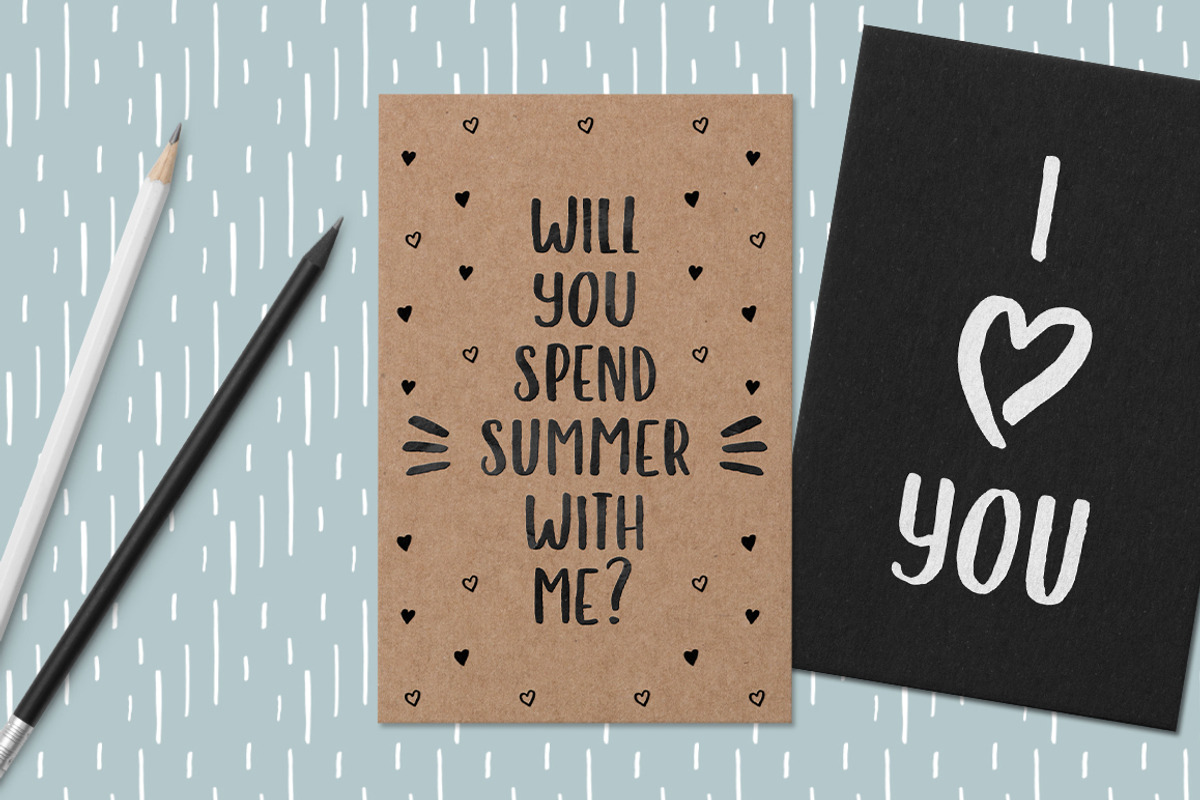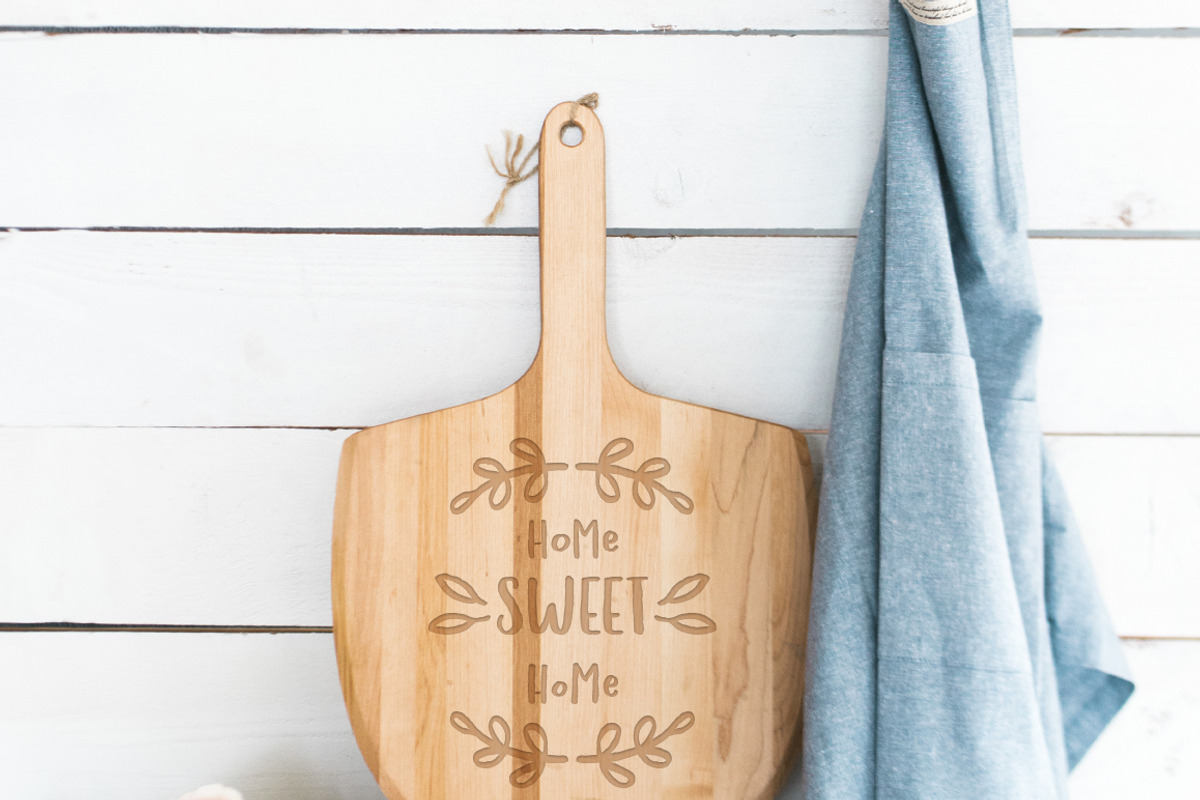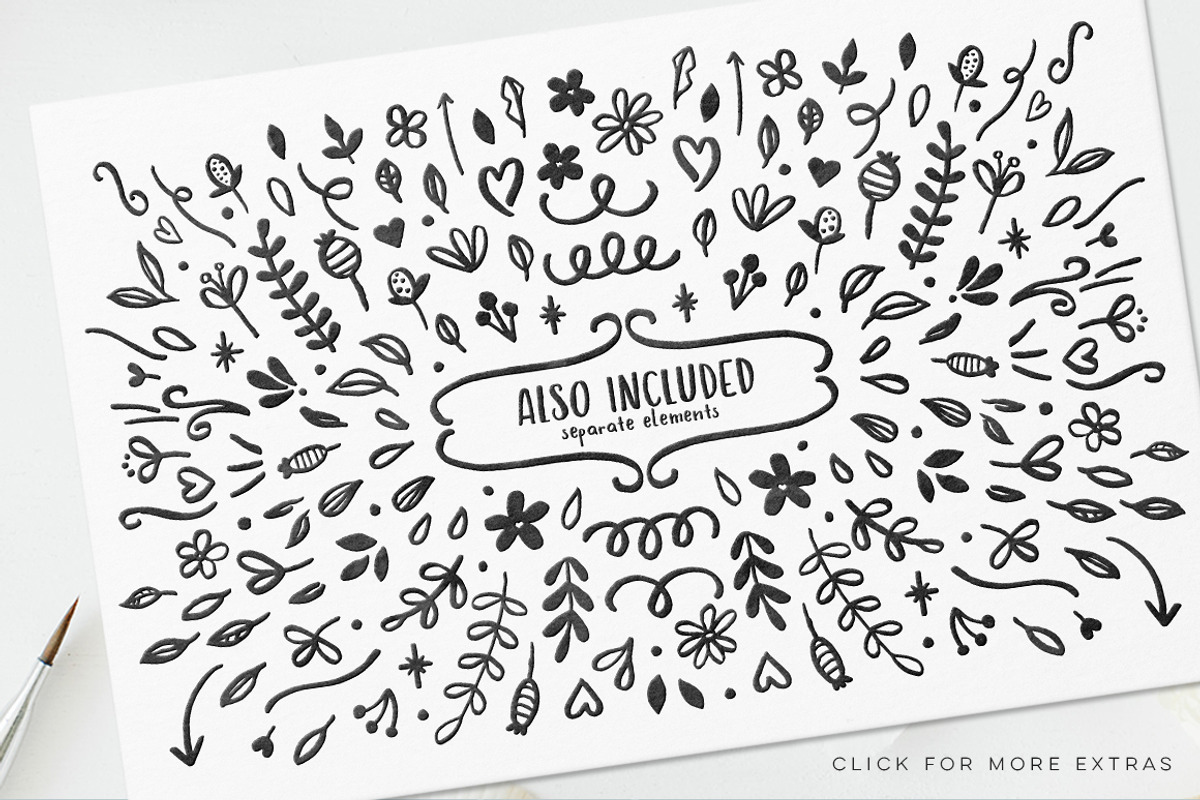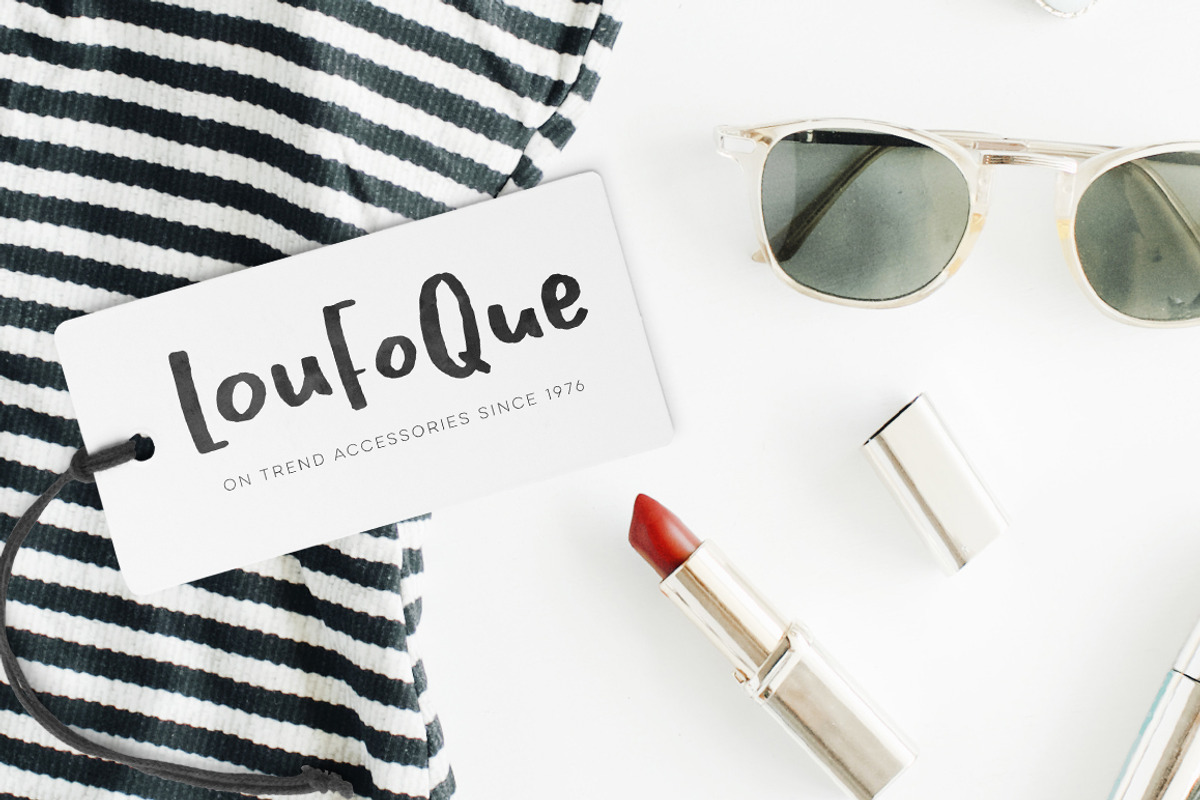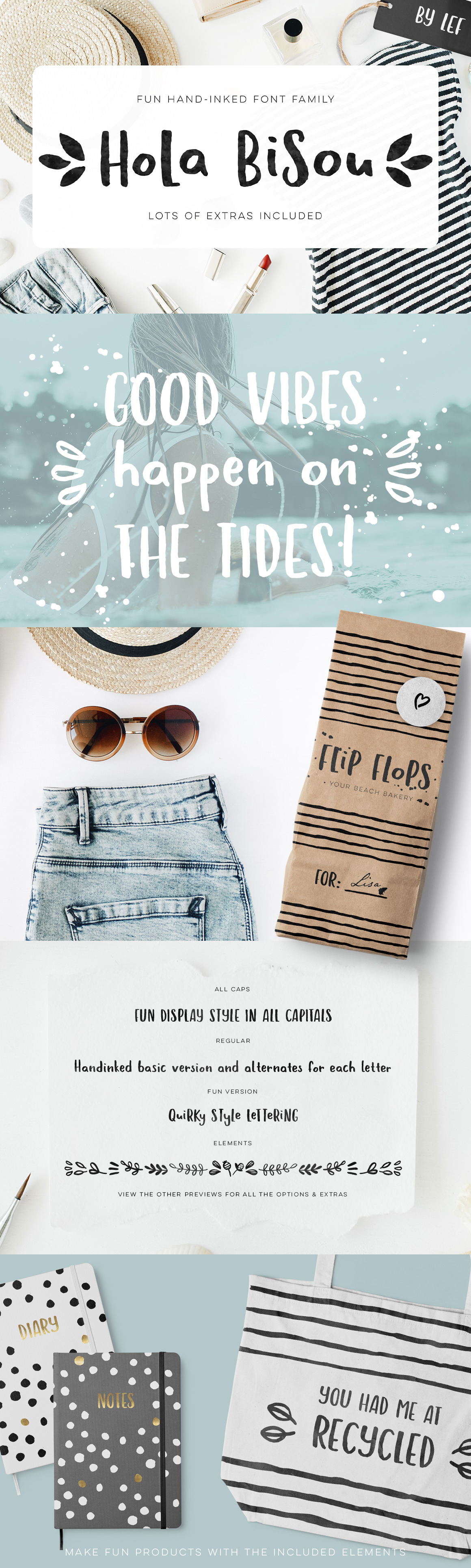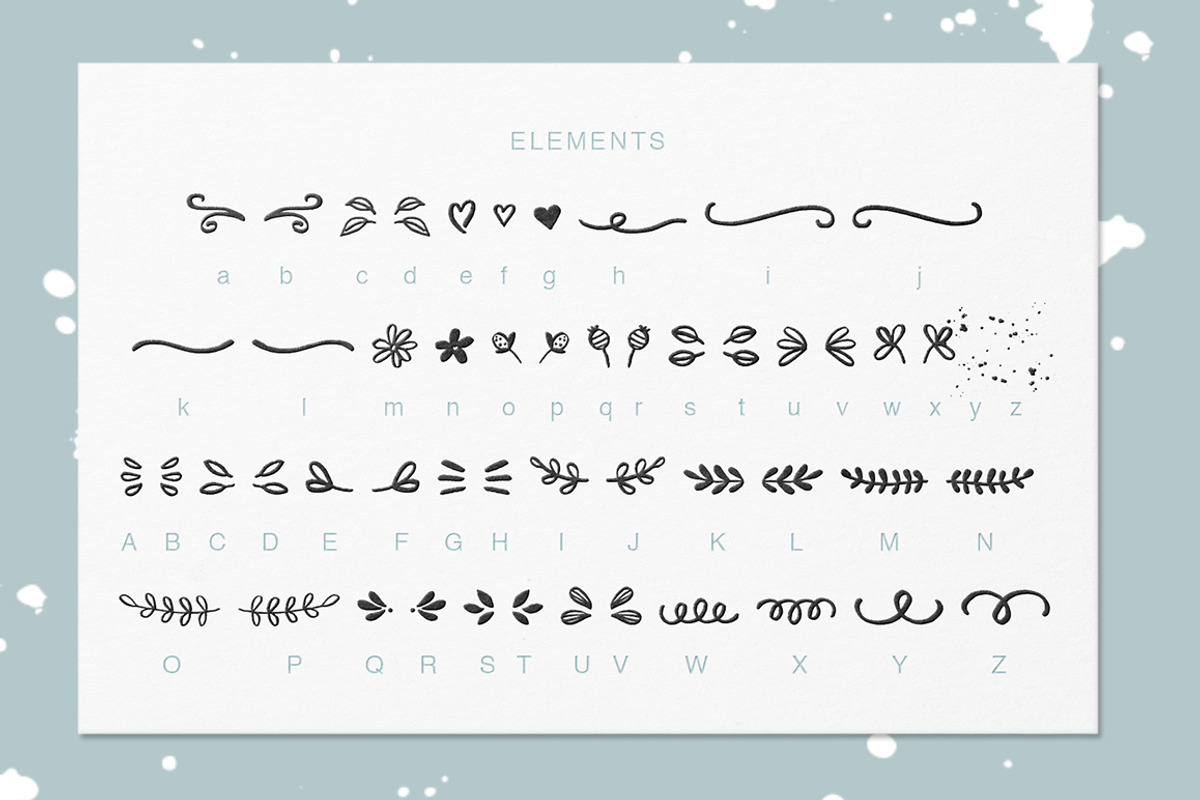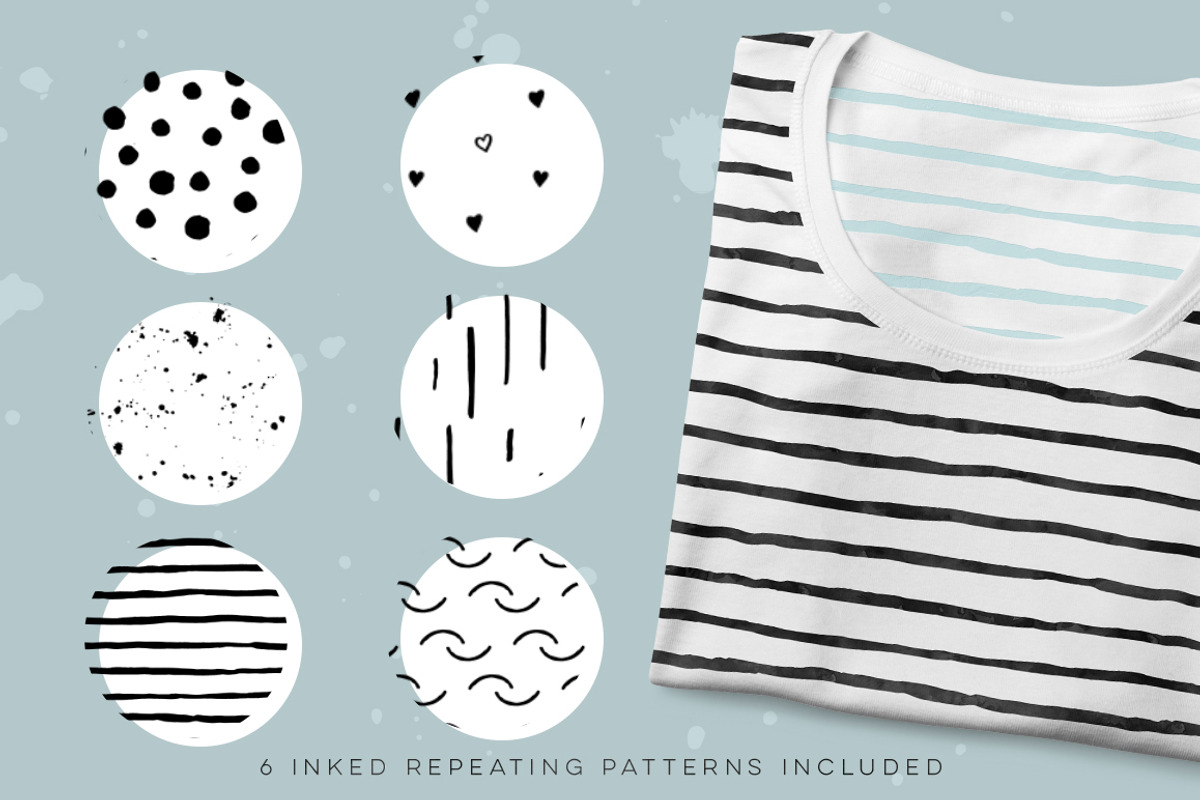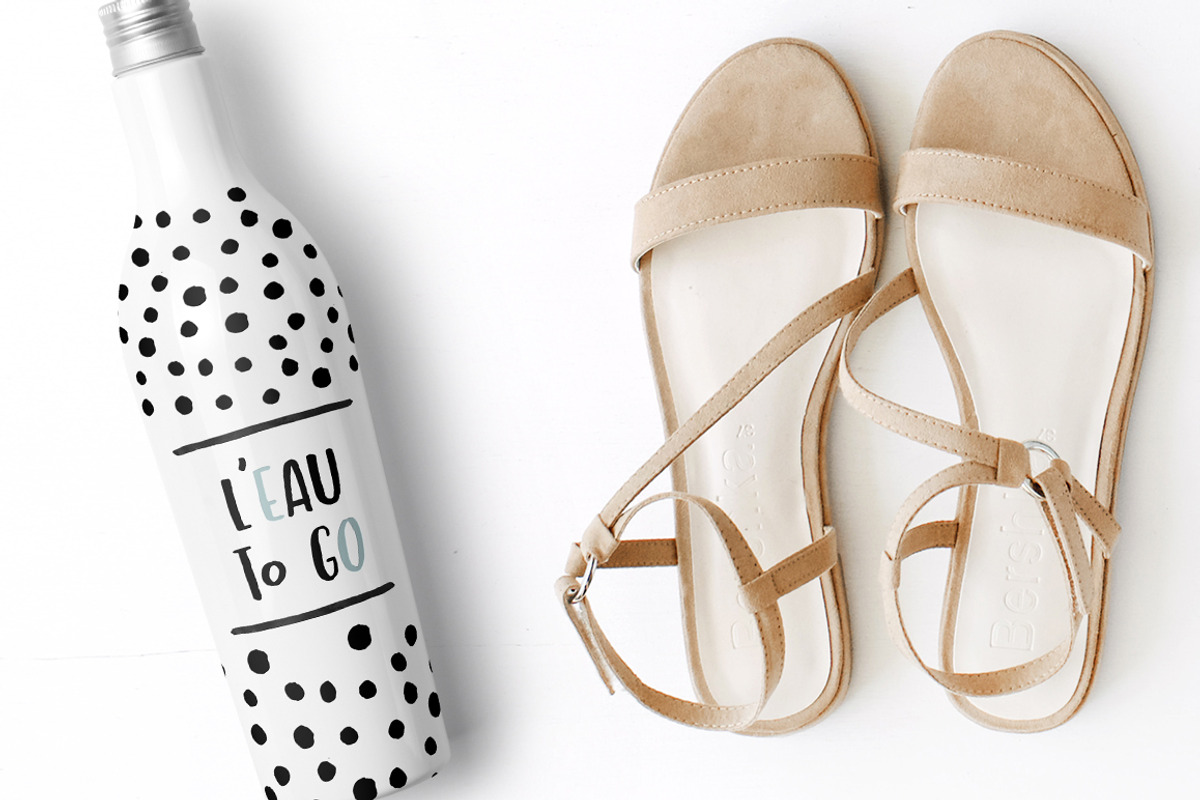
Hola Bisou font handlettered ink
★ Hola Bisou! ★ A handinked font family loaded with extras ★
I'm so excited about this whole package! This set turned out so versatile! Hola Bisou is quirky and fun and has that perfect summer vibe if you ask me. I don't know about you but this sun I've seen the last weeks really makes me feel like (shaving my legs and) dusting off my bikini to go catch some waves! I added lots of extras for you to play with in this set like patterns and vector elements.
The font fam